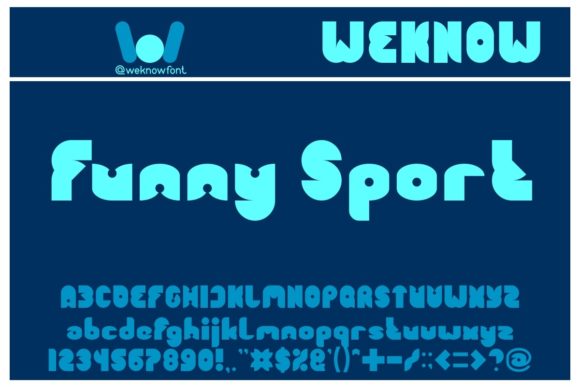
Welcome to the realm of Funny Sport Font, where boldness and thickness dance together in perfect harmony!
Funny Sport Font is not just a font; it's an invitation to unleash your creativity. Its bold and beefy letters are like a beacon of style, calling you to create designs that demand attention.
We know fonts, and we know what makes them tick. That's why we've crafted Funny Sport Font with a purpose: to elevate your designs to new heights. Whether you're a seasoned pro or just starting your design journey, this font has the power to transform your ideas into masterpieces.
Its thick, sturdy strokes convey a sense of strength and confidence, making it the perfect choice for logos that need a punch. Imagine your brand name emblazoned in Funny Sport Font, commanding attention from every corner of the digital world.
But Funny Sport Font's versatility doesn't end there. Its bold curves and dynamic angles make it ideal for t-shirt designs that pop. Create eye-catching graphics that will turn heads everywhere you go.
Sportswear, packaging, social media posts – the possibilities are endless with Funny Sport Font. It's a font that adapts seamlessly to any branding project, giving your designs a unique and unforgettable edge.